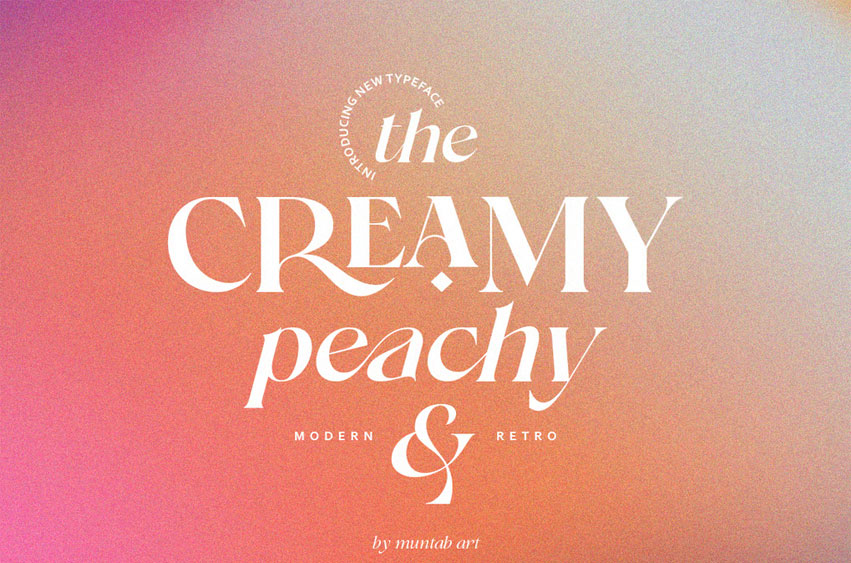
Creamy Peachy Font
Creamy Peachy Font includes uppercase letters, lowercase letters, numerals, a large range of punctuation. Serif font with modern stylish style include ligatures and alternate characters.
Created for poster, web design, branding, illustrations, badges and some other works.